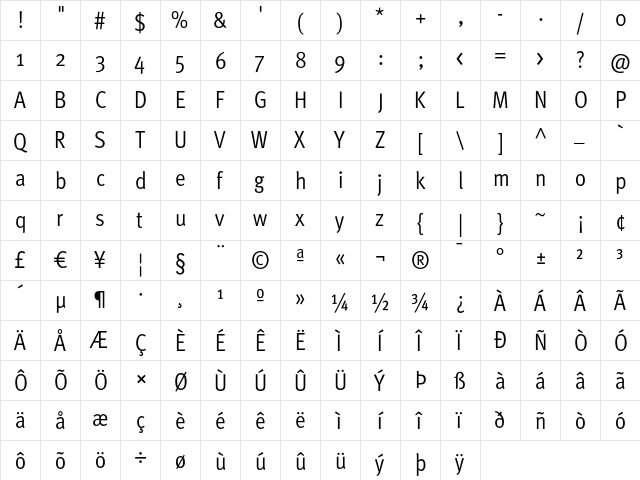
MetaCondNormal Roman Font Preview
MetaCondNormal Roman
Design Context for MetaCondNormal Typeface
MetaCondNormal is a composed and adaptable typeface that performs quietly and consistently across a wide range of design contexts. The condensed width makes it efficient for tight spaces without sacrificing legibility.
Pro Tip: Pair MetaCondNormal with a font of contrasting weight or personality to build a more expressive typographic hierarchy.